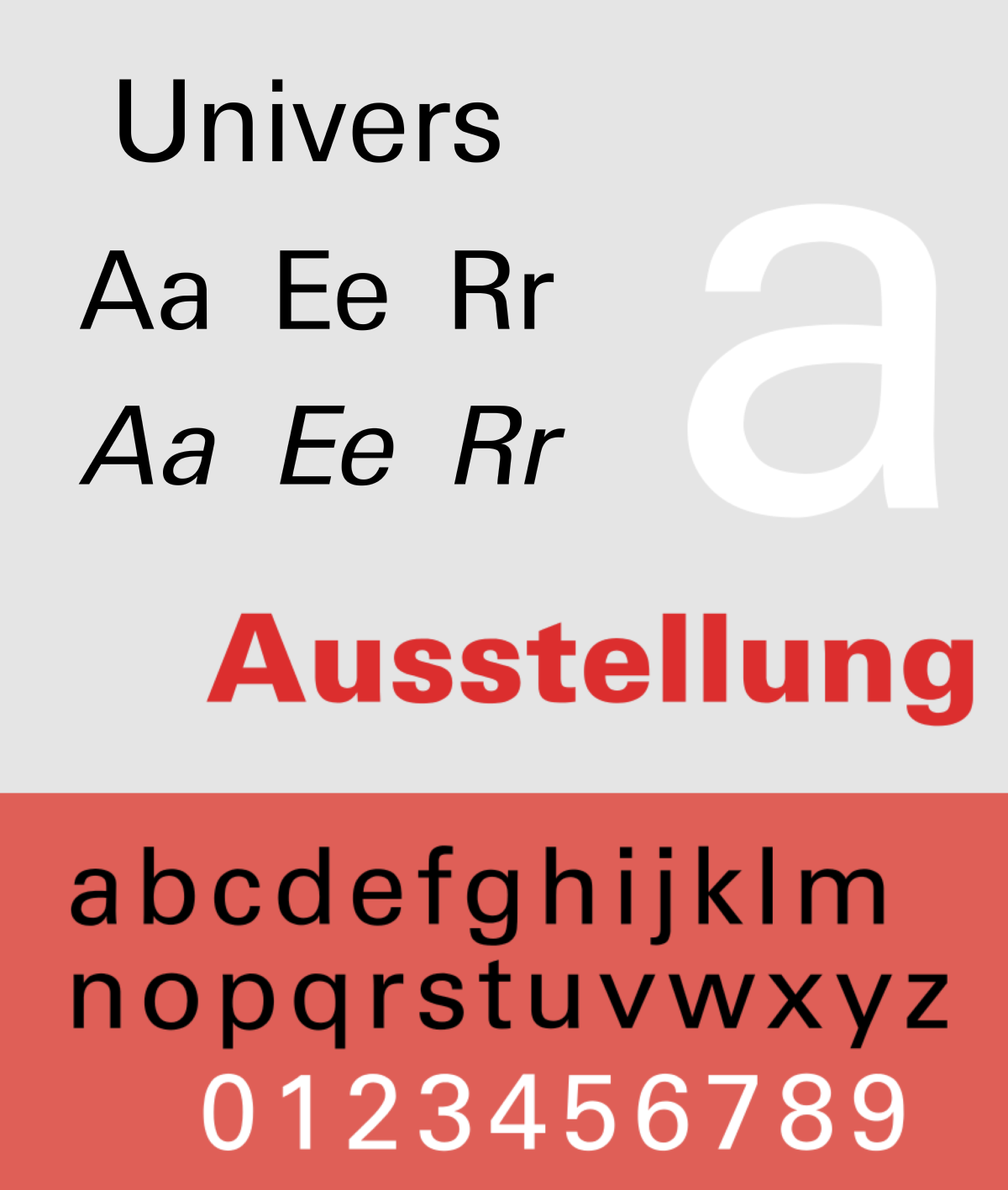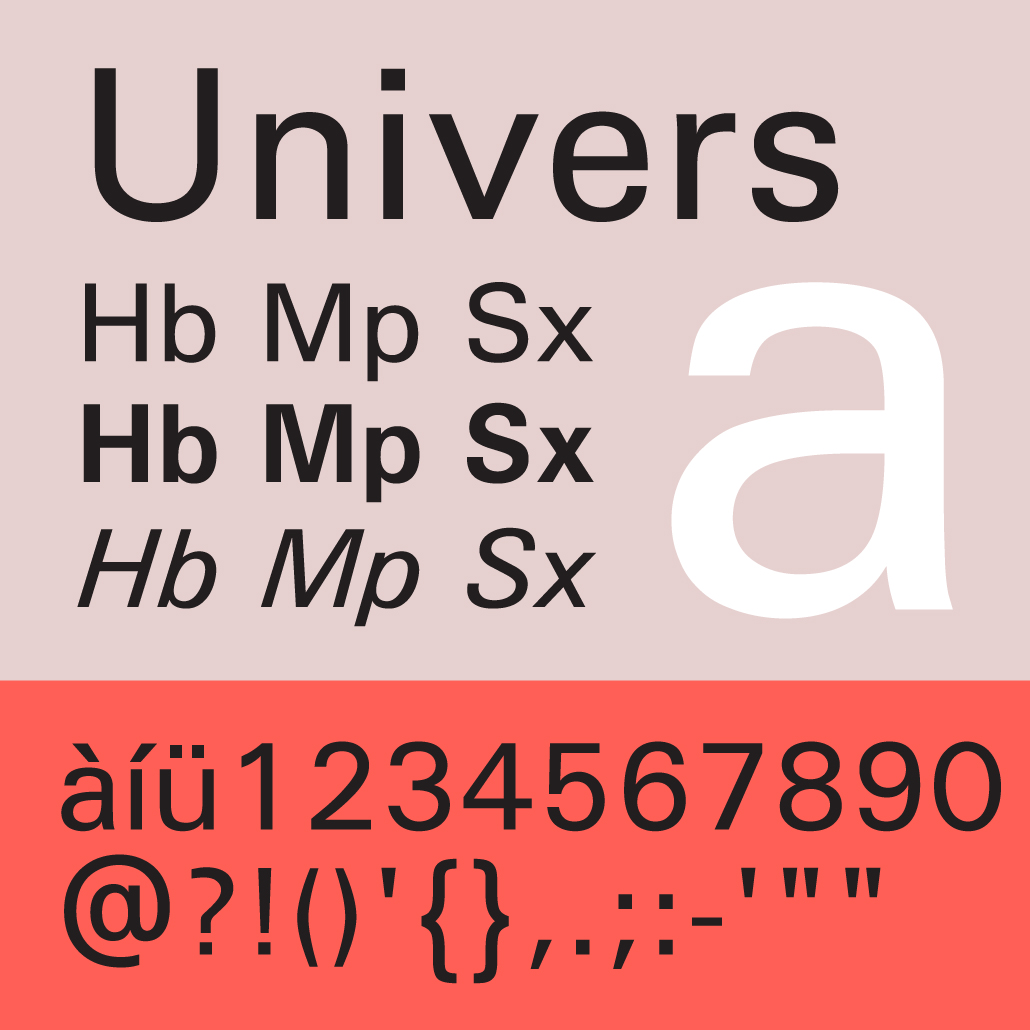
Univers Font Alternatives
Univers Font Alternatives - Websites using the typeface univers with personal recommendations for similar web fonts, suggested font pairings and the closest. Find a great univers replacement font and try to recreate a similar mood and capture the feeling you aim for by using it in your designs. Originally designed by adrian frutiger for deberny & peignot in 1957. An ideal companion to the font glypha.
Originally designed by adrian frutiger for deberny & peignot in 1957. Websites using the typeface univers with personal recommendations for similar web fonts, suggested font pairings and the closest. An ideal companion to the font glypha. Find a great univers replacement font and try to recreate a similar mood and capture the feeling you aim for by using it in your designs.
Originally designed by adrian frutiger for deberny & peignot in 1957. An ideal companion to the font glypha. Websites using the typeface univers with personal recommendations for similar web fonts, suggested font pairings and the closest. Find a great univers replacement font and try to recreate a similar mood and capture the feeling you aim for by using it in your designs.
Find a great univers replacement font and try to recreate a similar mood and capture the feeling you aim for by using it in your designs. Websites using the typeface univers with personal recommendations for similar web fonts, suggested font pairings and the closest. Originally designed by adrian frutiger for deberny & peignot in 1957. An ideal companion to the.
Univers Font Combinations & Free Alternatives · Typewolf
An ideal companion to the font glypha. Websites using the typeface univers with personal recommendations for similar web fonts, suggested font pairings and the closest. Find a great univers replacement font and try to recreate a similar mood and capture the feeling you aim for by using it in your designs. Originally designed by adrian frutiger for deberny & peignot.
Websites using the typeface univers with personal recommendations for similar web fonts, suggested font pairings and the closest. Originally designed by adrian frutiger for deberny & peignot in 1957. An ideal companion to the font glypha. Find a great univers replacement font and try to recreate a similar mood and capture the feeling you aim for by using it in.
Originally designed by adrian frutiger for deberny & peignot in 1957. An ideal companion to the font glypha. Find a great univers replacement font and try to recreate a similar mood and capture the feeling you aim for by using it in your designs. Websites using the typeface univers with personal recommendations for similar web fonts, suggested font pairings and.
Find a great univers replacement font and try to recreate a similar mood and capture the feeling you aim for by using it in your designs. An ideal companion to the font glypha. Websites using the typeface univers with personal recommendations for similar web fonts, suggested font pairings and the closest. Originally designed by adrian frutiger for deberny & peignot.
Univers Font for a Modern Design
Websites using the typeface univers with personal recommendations for similar web fonts, suggested font pairings and the closest. Find a great univers replacement font and try to recreate a similar mood and capture the feeling you aim for by using it in your designs. Originally designed by adrian frutiger for deberny & peignot in 1957. An ideal companion to the.
Univers free fonts eanored
An ideal companion to the font glypha. Originally designed by adrian frutiger for deberny & peignot in 1957. Websites using the typeface univers with personal recommendations for similar web fonts, suggested font pairings and the closest. Find a great univers replacement font and try to recreate a similar mood and capture the feeling you aim for by using it in.
Univers Font Combinations & Free Alternatives · Typewolf
Originally designed by adrian frutiger for deberny & peignot in 1957. An ideal companion to the font glypha. Websites using the typeface univers with personal recommendations for similar web fonts, suggested font pairings and the closest. Find a great univers replacement font and try to recreate a similar mood and capture the feeling you aim for by using it in.
Univers Font Free Download Fonts
Originally designed by adrian frutiger for deberny & peignot in 1957. Find a great univers replacement font and try to recreate a similar mood and capture the feeling you aim for by using it in your designs. An ideal companion to the font glypha. Websites using the typeface univers with personal recommendations for similar web fonts, suggested font pairings and.
Univers font download
Websites using the typeface univers with personal recommendations for similar web fonts, suggested font pairings and the closest. An ideal companion to the font glypha. Find a great univers replacement font and try to recreate a similar mood and capture the feeling you aim for by using it in your designs. Originally designed by adrian frutiger for deberny & peignot.
Originally Designed By Adrian Frutiger For Deberny & Peignot In 1957.
Find a great univers replacement font and try to recreate a similar mood and capture the feeling you aim for by using it in your designs. Websites using the typeface univers with personal recommendations for similar web fonts, suggested font pairings and the closest. An ideal companion to the font glypha.